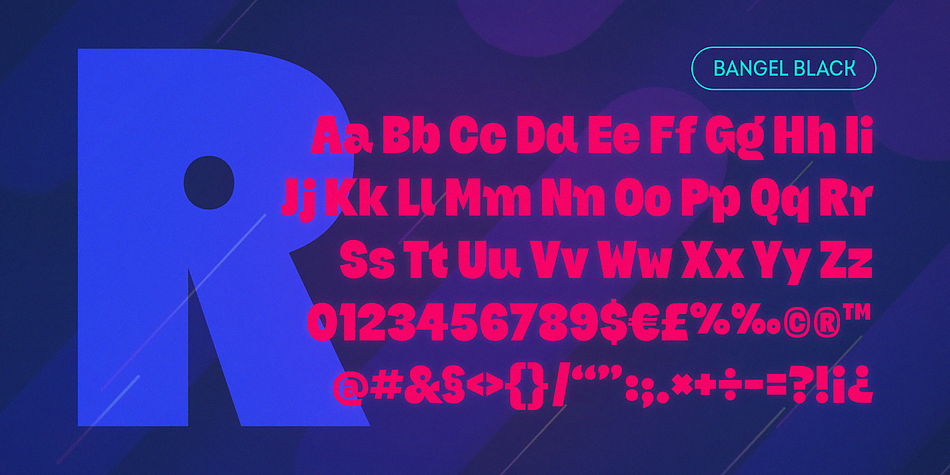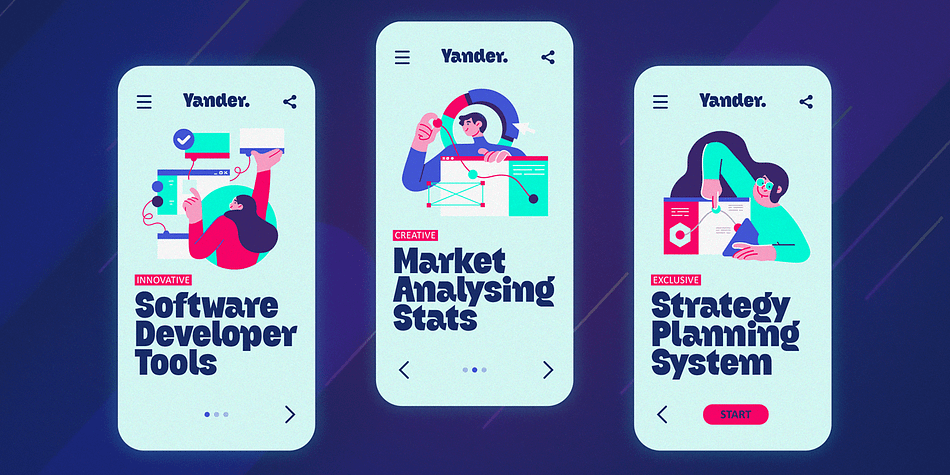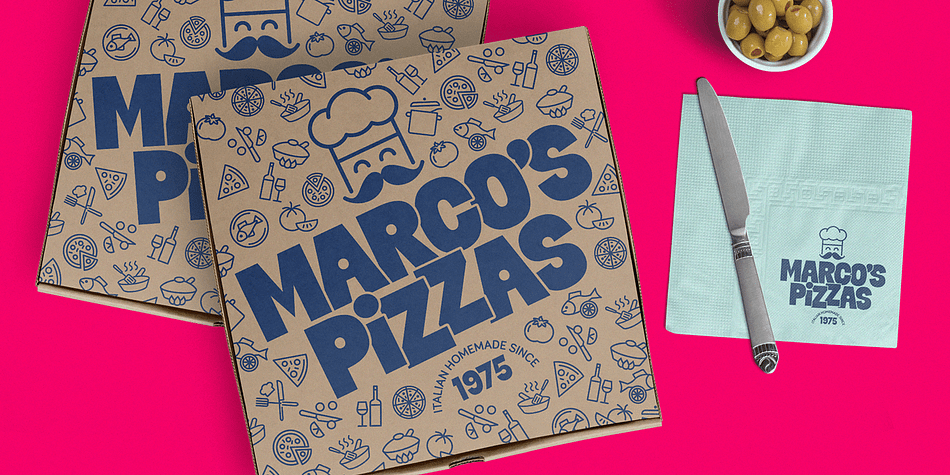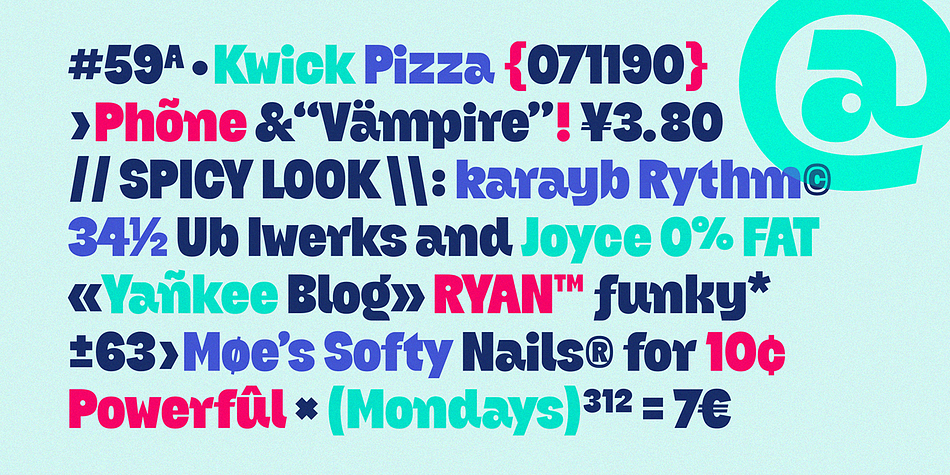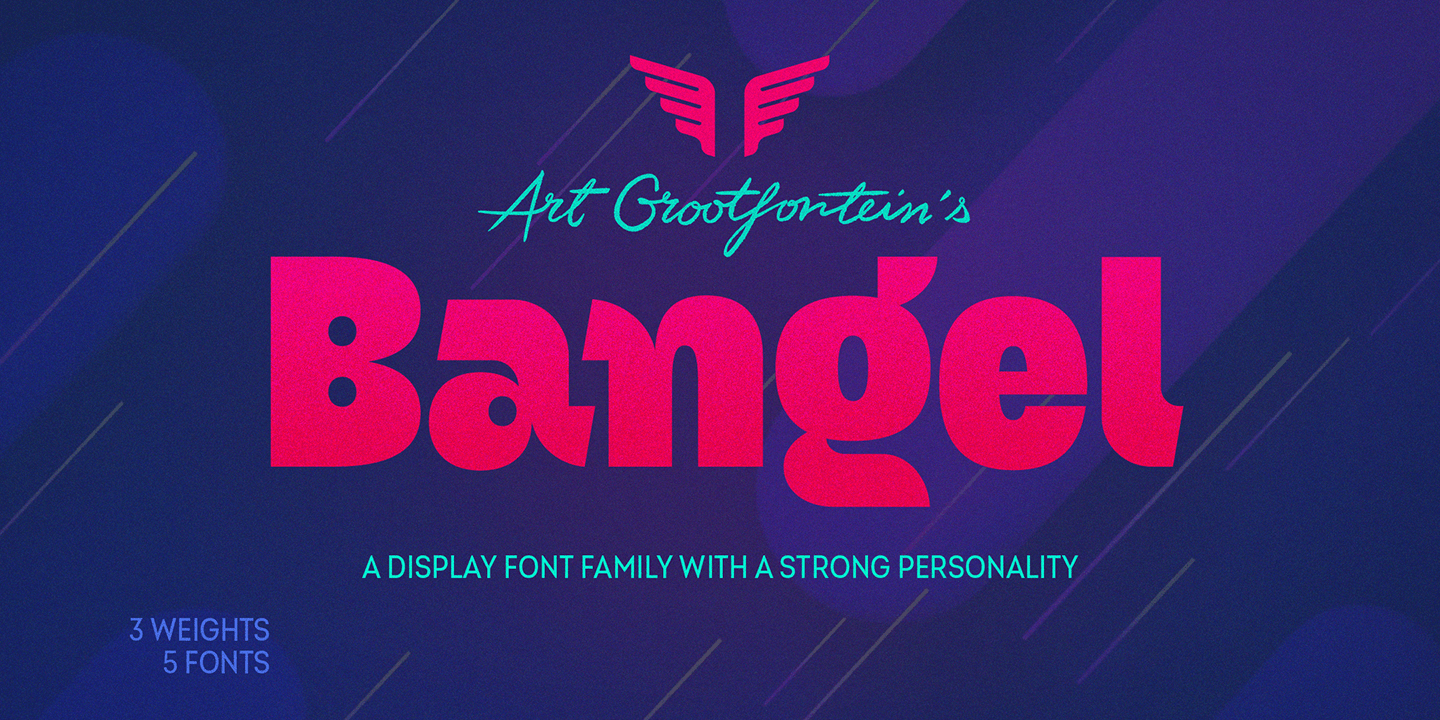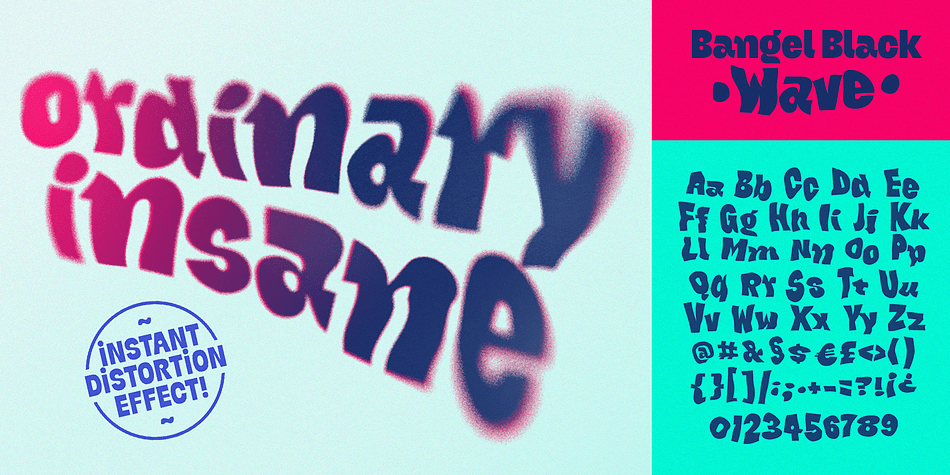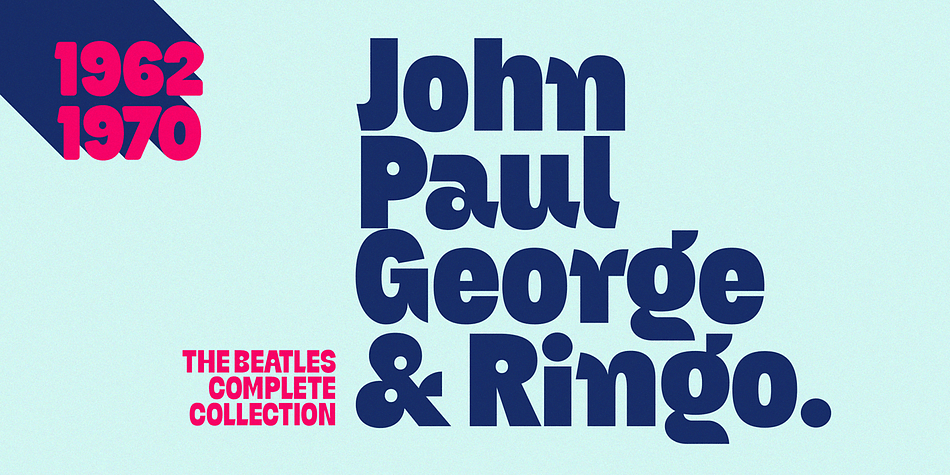
Bangel is a display sans, retro and sans serif font family. This typeface has five styles and was published by Art Grootfontein.
Bangel is a contemporary display font family with a strong personality.
The eye-catching letter design is quite geometric, but also pretty expressive and fun.
It supports broad latin languages and comes with 4 styles + a special free Wave bonus.
Bangel is a pretty good choice for logotypes, branding, headlines and posters. This typeface is also a powerful option for use on social media, web & UI design.